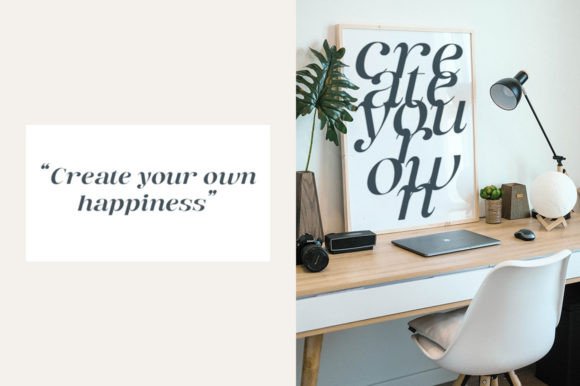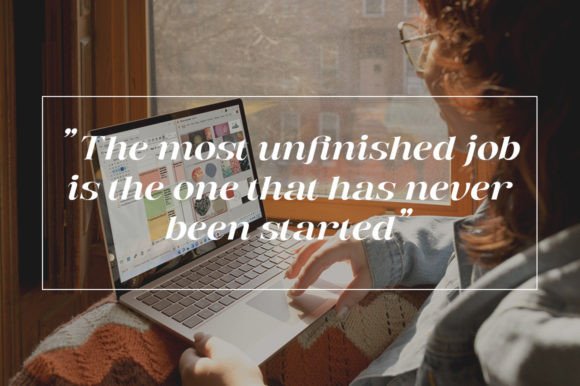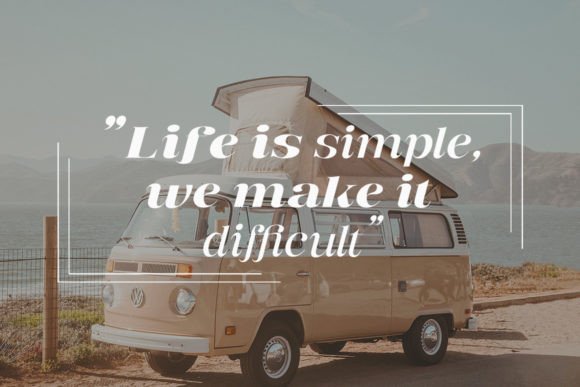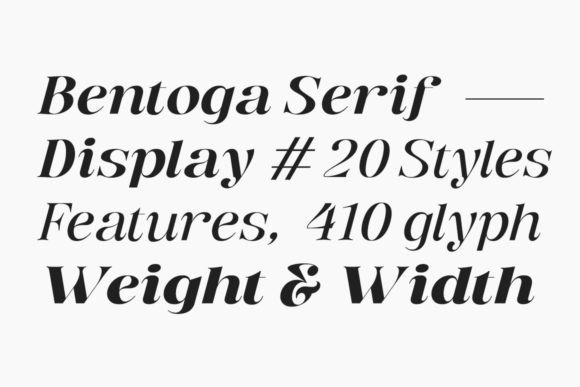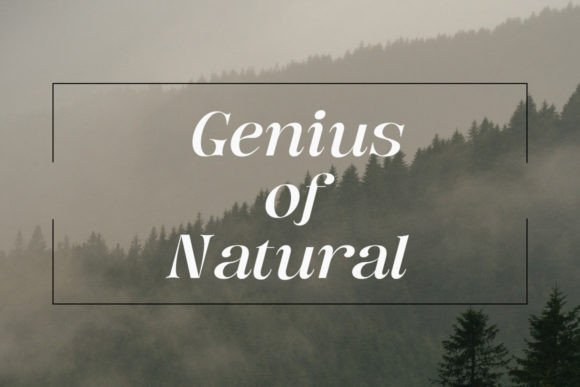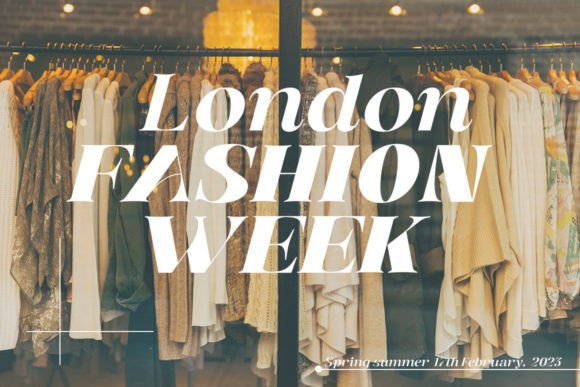
Introducing Bentoga Italic Font: Elevate Your Designs with Elegance and Sophistication
In the world of typography, a new addition has emerged that is set to revolutionize the way designers and crafters approach their creative projects. Black Studio is proud to present Bentoga, a typeface that embodies the perfect blend of femininity, adaptability, and contemporary aesthetics. Specifically, the Bentoga Italic Font is designed to bring a touch of elegance and sophistication to any design, making it an ideal choice for a wide range of applications.
The Essence of Bentoga Italic Font
Bentoga Italic Font is characterized by its striking contrasts and subtle details, which, when combined with luxurious strokes and voluptuous curves, create a powerful statement for any typographic composition. This typeface seamlessly blends glamour with modern aesthetics, making it a versatile tool for designers looking to make an impact. Whether you’re working on a book, fashion magazine, logo, branding, photography project, or even a wedding invitation, Bentoga Italic Font is designed to elevate your design to new heights.
Limitless Creative Possibilities
One of the standout features of Bentoga Italic Font is its incredible versatility. This typeface allows you to create limitless variations for your creative needs, making it an invaluable asset for any designer or crafter. From the titles of books and magazines to logos, branding, and advertising materials, Bentoga Italic Font can be used across a myriad of projects. It’s perfect for blog headers, postcards, and websites, offering a sophisticated look that is sure to captivate your audience.
Applications of Bentoga Italic Font
The applications of Bentoga Italic Font are vast and varied. Here are a few examples of how this versatile typeface can be used:
- Books and Magazines: Add a touch of elegance to your book covers or magazine titles, making them stand out on crowded shelves.
- Fashion and Beauty: Perfect for branding, logos, and advertising materials in the fashion and beauty industry, where style and sophistication are paramount.
- Logos and Branding: Create memorable logos and branding materials that exude luxury and modernity.
- Photography: Use Bentoga Italic Font to add a sophisticated touch to your photography projects, such as portfolios or promotional materials.
- Invitations and Wedding Invites: Make your invitations and wedding invites truly special with a font that spells elegance and class.
- Quotes and Posters: Create impactful quotes and posters that grab attention and inspire.
- Blog Headers and Websites: Elevate your online presence with a font that combines beauty and readability.
Why Choose Bentoga Italic Font?
Choosing Bentoga Italic Font for your design projects comes with numerous benefits. Its unique blend of traditional and modern elements ensures that your work stands out in a crowded marketplace. The font’s luxurious feel and adaptability make it suitable for both digital and print projects, offering designers a flexible tool that can be used across various mediums.
Bentoga Italic Font by Black Studio is a game-changer for designers and crafters looking to infuse their projects with elegance, sophistication, and a contemporary edge. Its versatility, beautiful design, and wide range of applications make it an essential tool for anyone looking to elevate their creative work. Whether you’re a professional designer or a DIY enthusiast, Bentoga Italic Font is sure to inspire and enhance your designs, helping you to create stunning visual statements that leave a lasting impression.